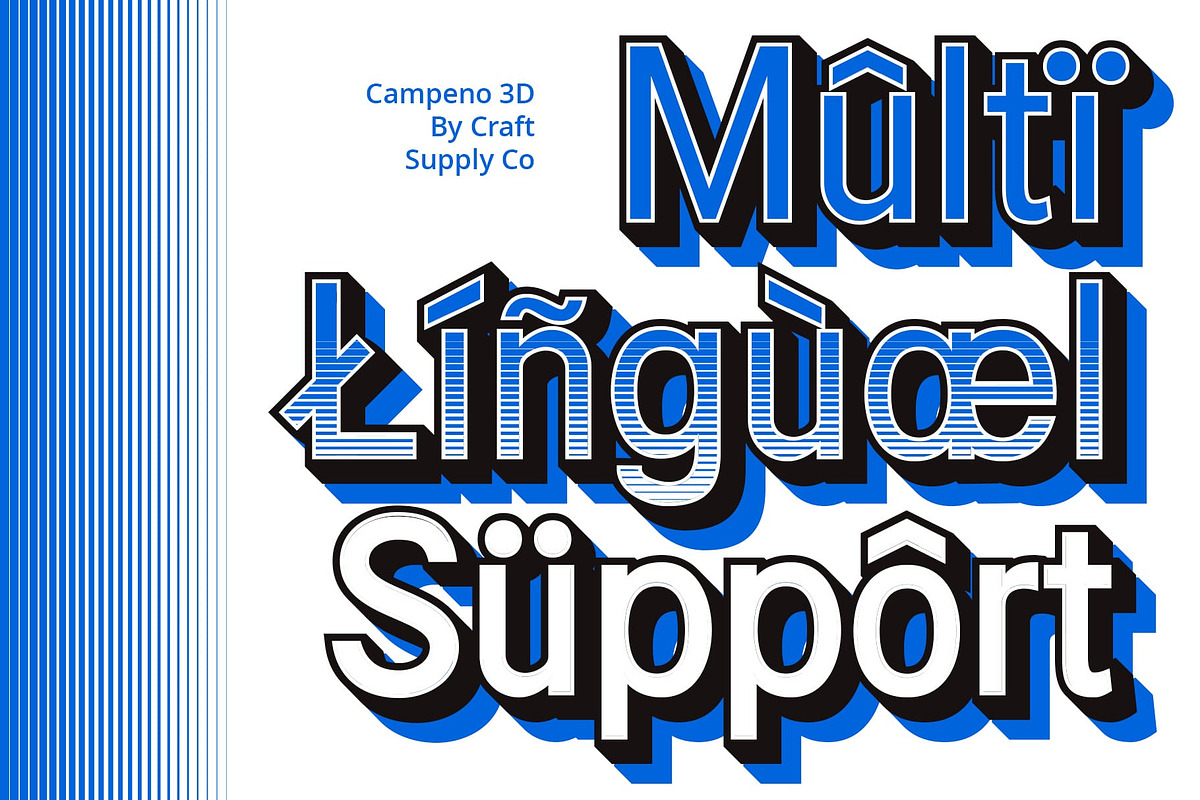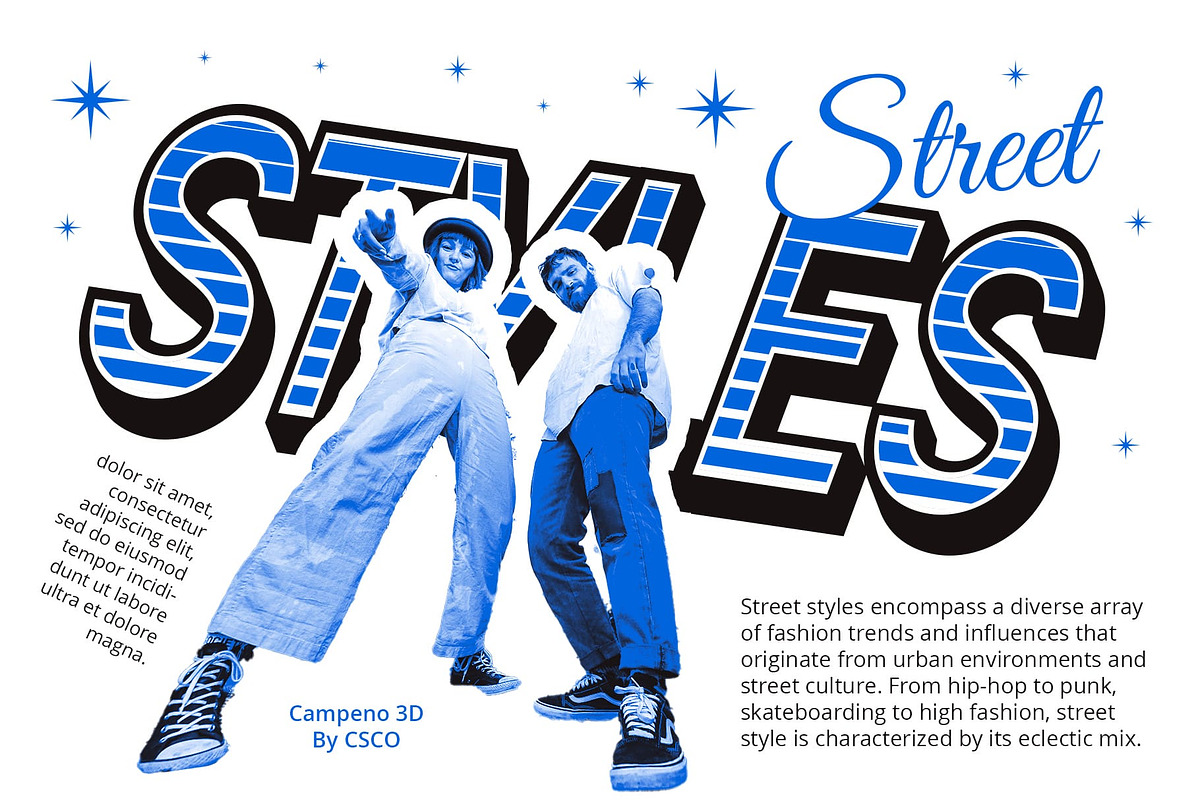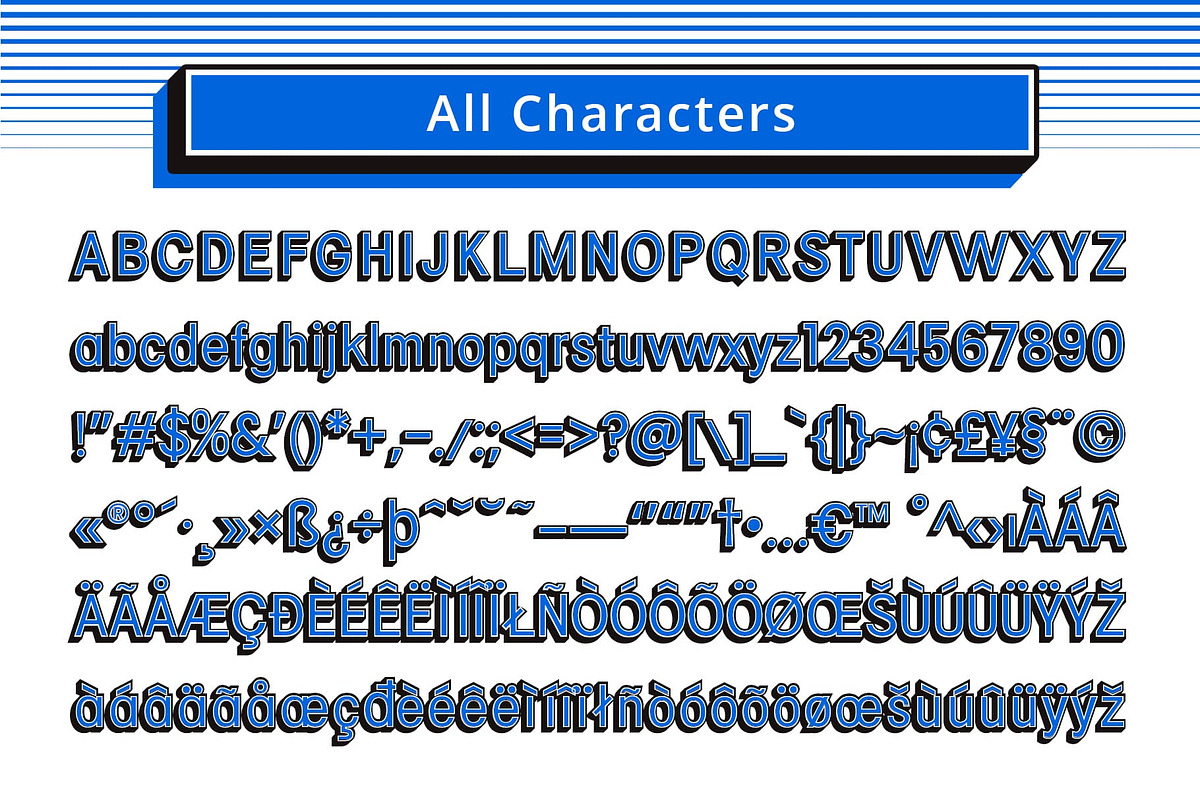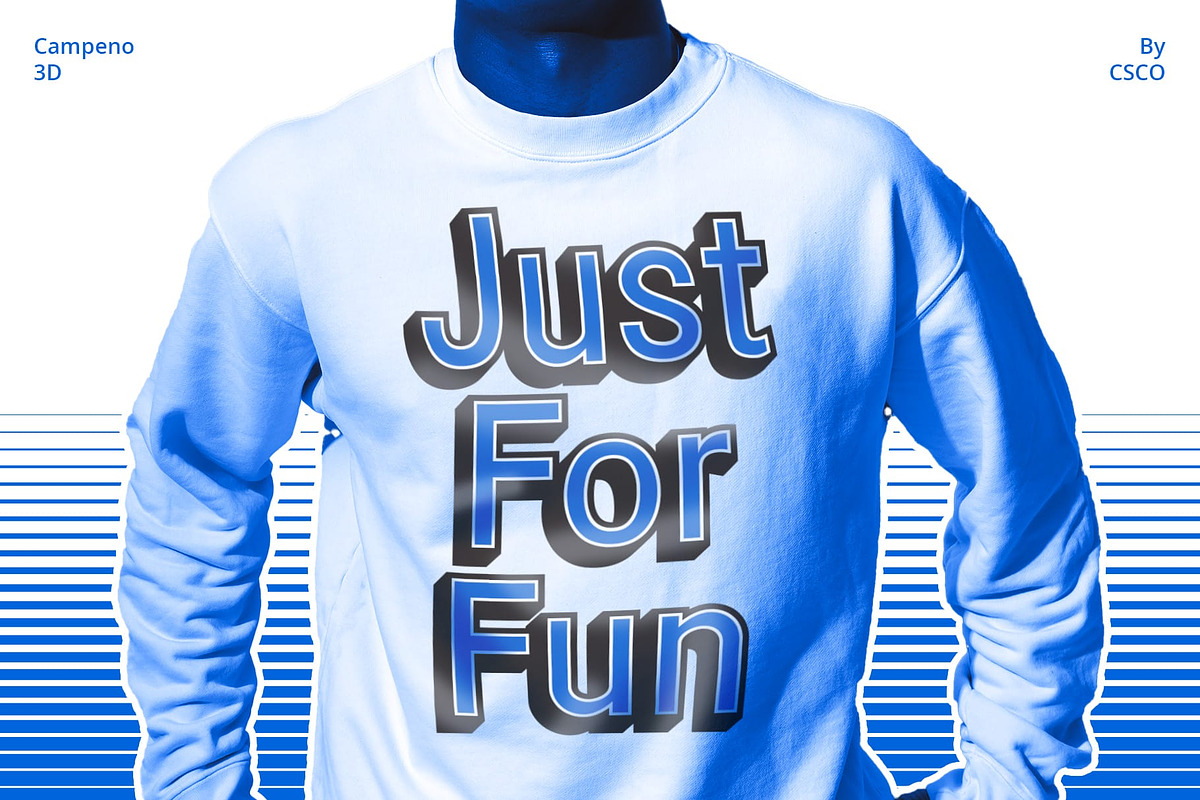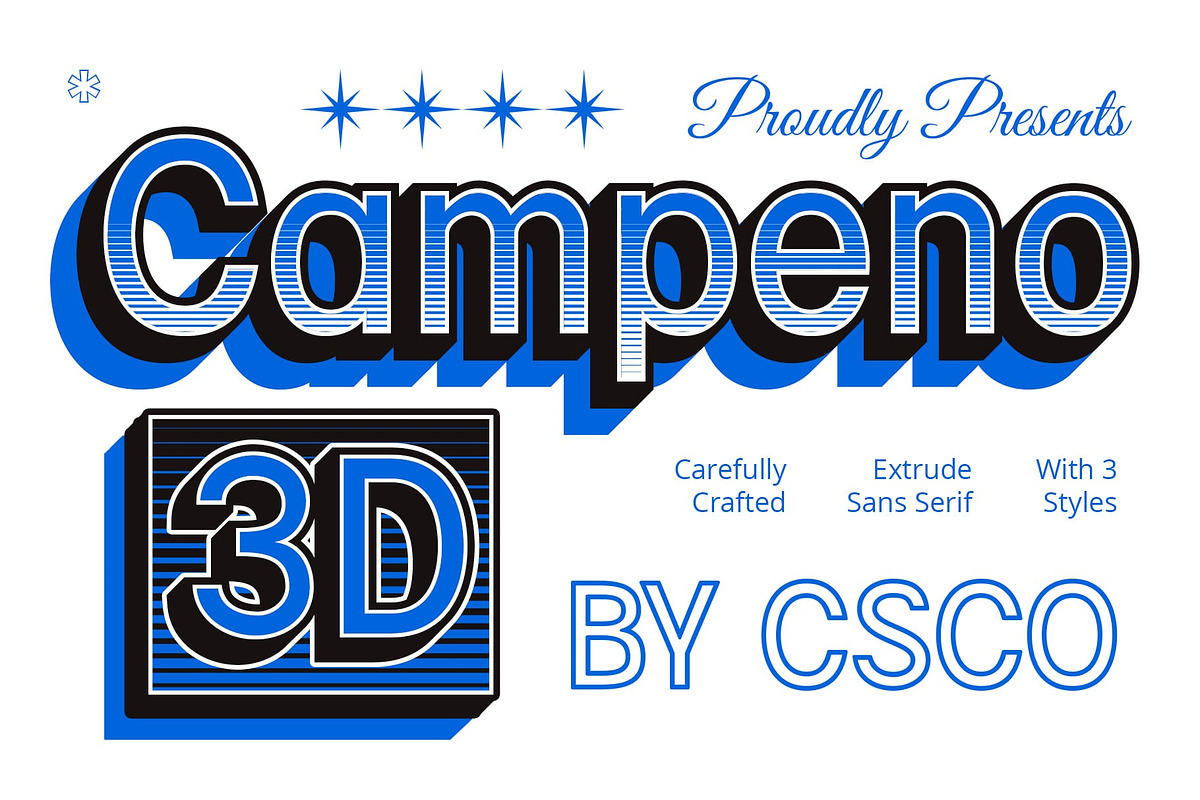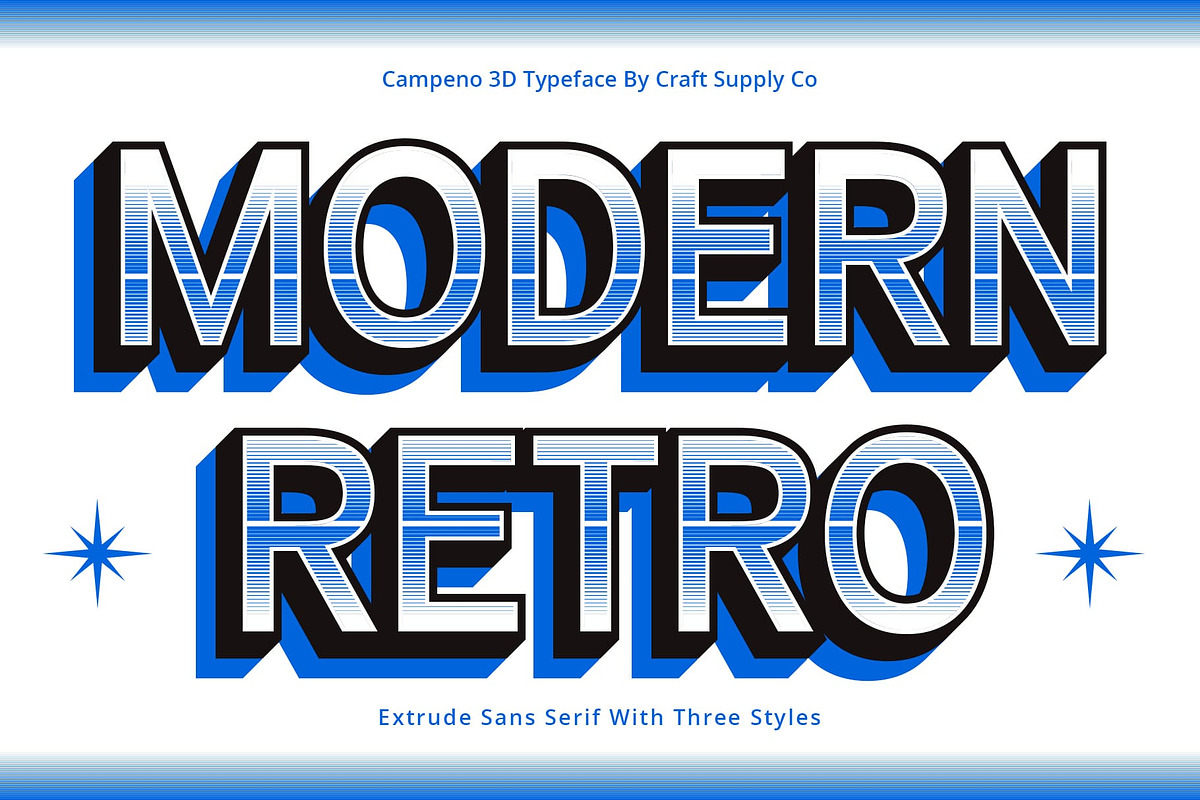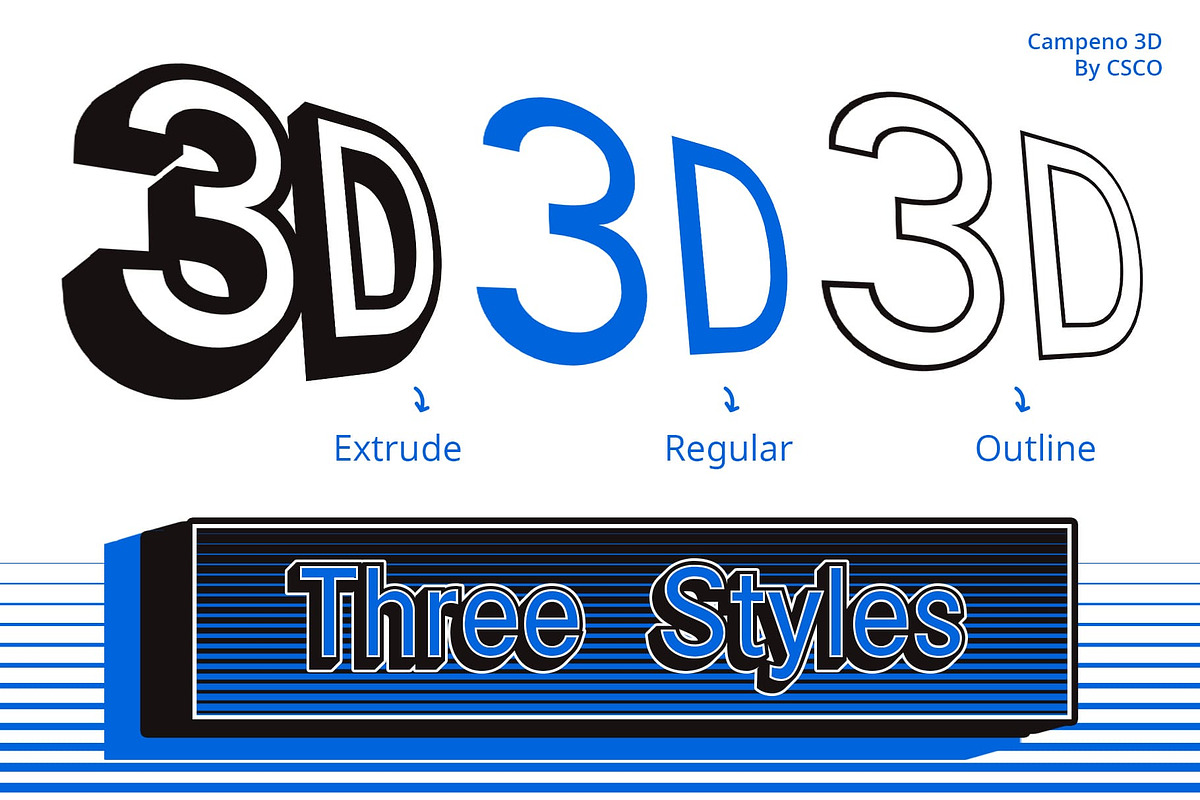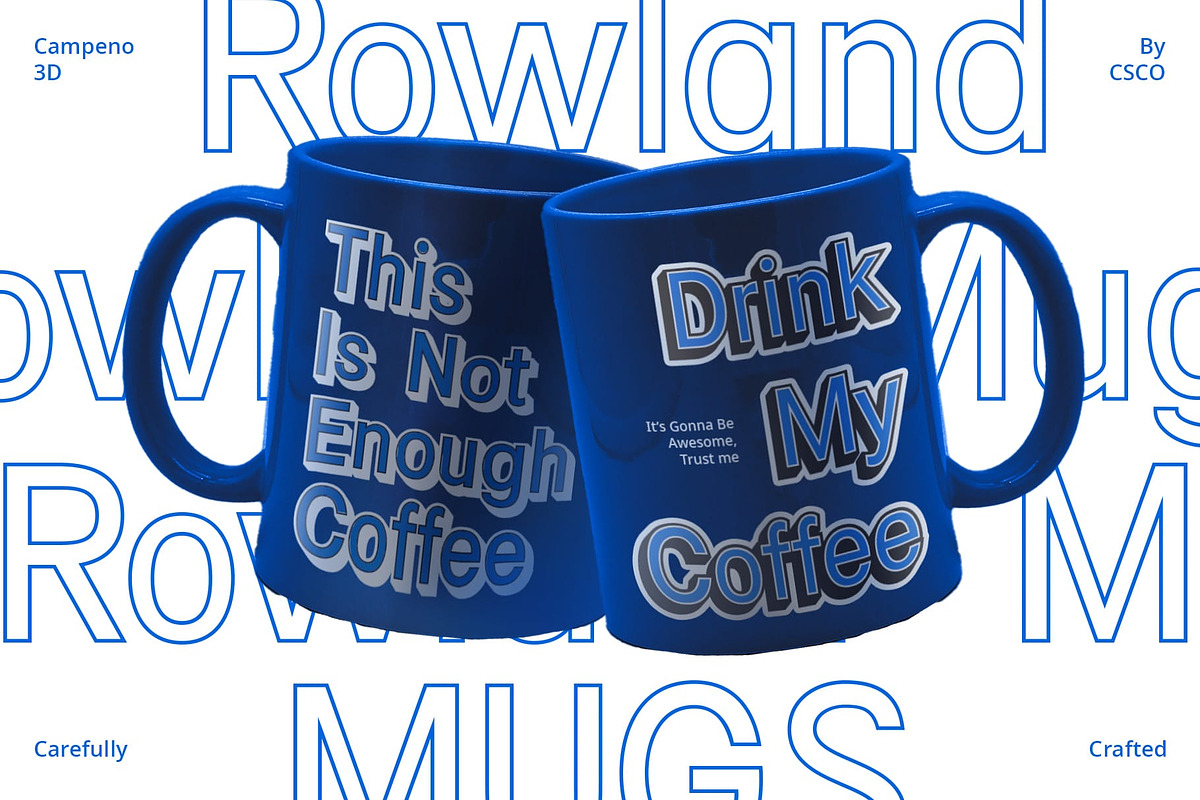
Campeno 3D
Campeno 3D: Redefining Display Typography
Sleek Low-Contrast Design Campeno 3D presents a sleek sans-serif style with low contrast, offering a modern and minimalist aesthetic. Its clean lines and uniform strokes ensure clarity and readability in any display setting.
Innovative 3D Effects With its innovative 3D effects, This font adds depth and dimension to each character, elevating the visual impact of your designs. The subtle yet striking three-dimensional appearance creates a sense of realism and dynamism.
Perfect for Display Needs Tailored for display purposes, This font excels in various applications such as headlines, signage, and branding materials. Its distinct 3D effect enhances the visibility and memorability of your message.
Versatile and Accessible Despite its avant-garde appearance, This font remains versatile and accessible for designers of all levels. Whether used in digital interfaces or printed materials, its modern yet timeless style ensures versatility and adaptability.
Modern Sophistication This font redefines display typography with its sleek low-contrast design and innovative 3D effects. Perfect for various display needs, this font combines modern aesthetics with accessibility, offering designers a versatile tool to enhance their visual creations. Step into the world of This font and transform your designs with modern sophistication